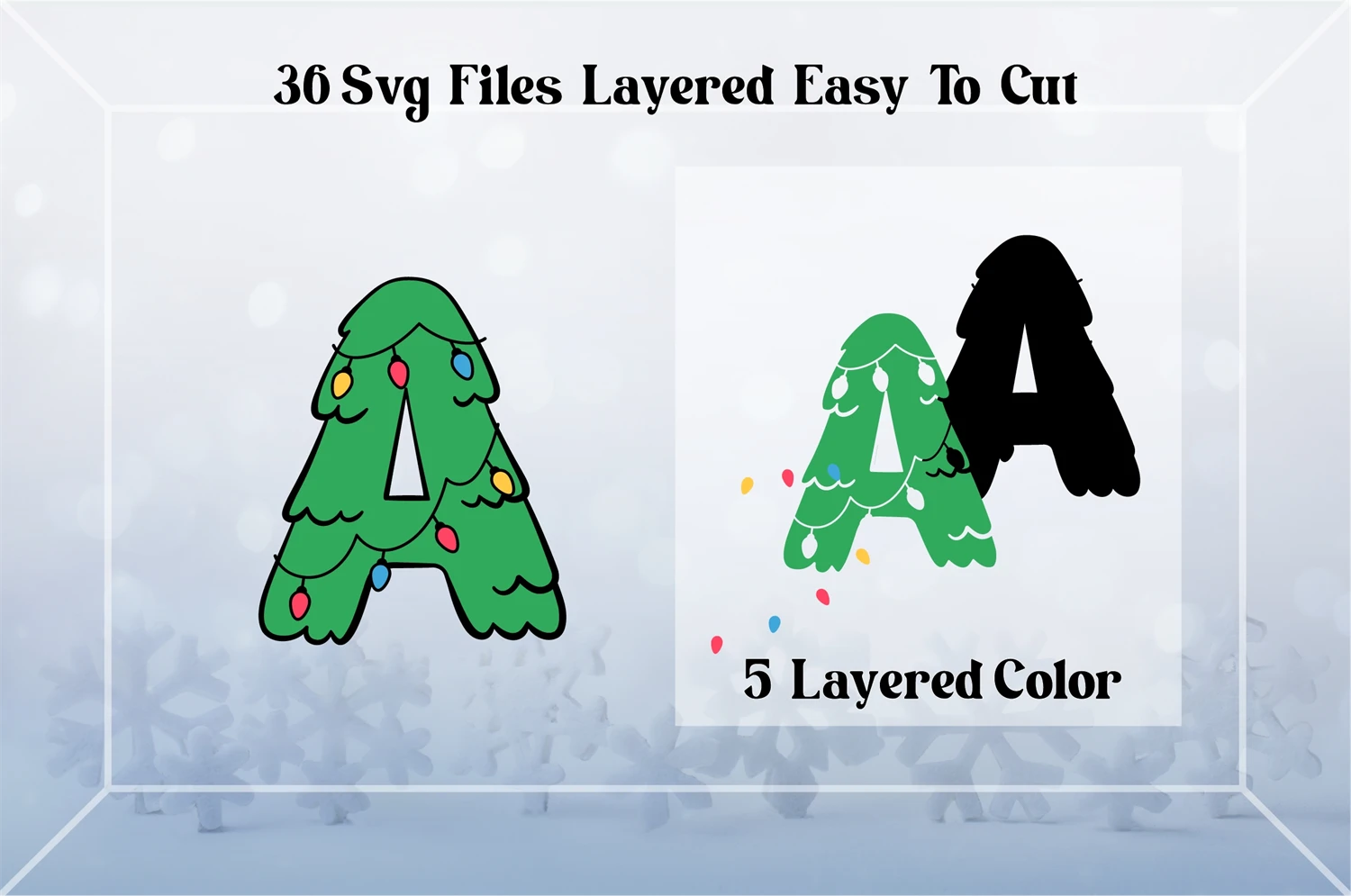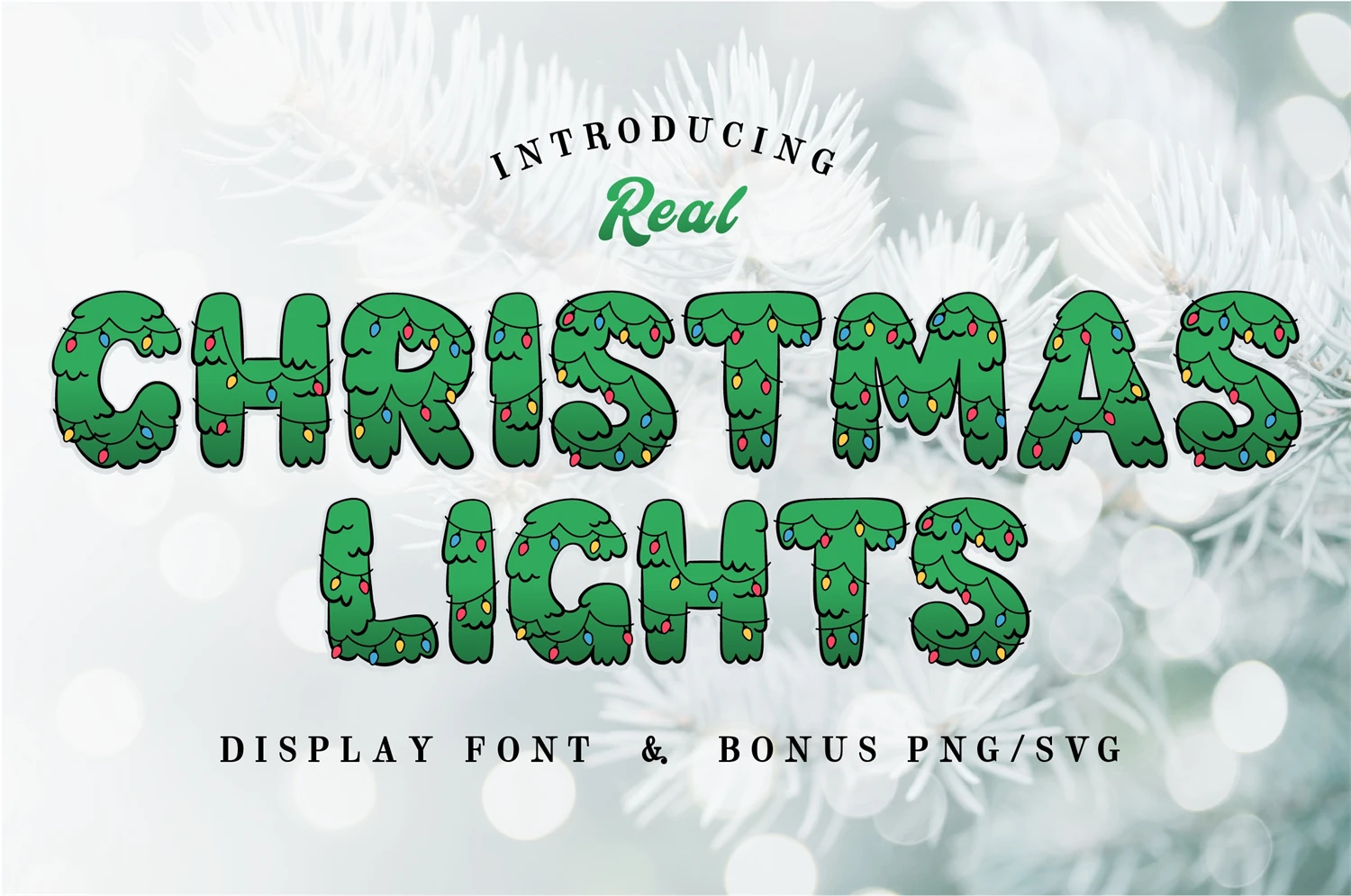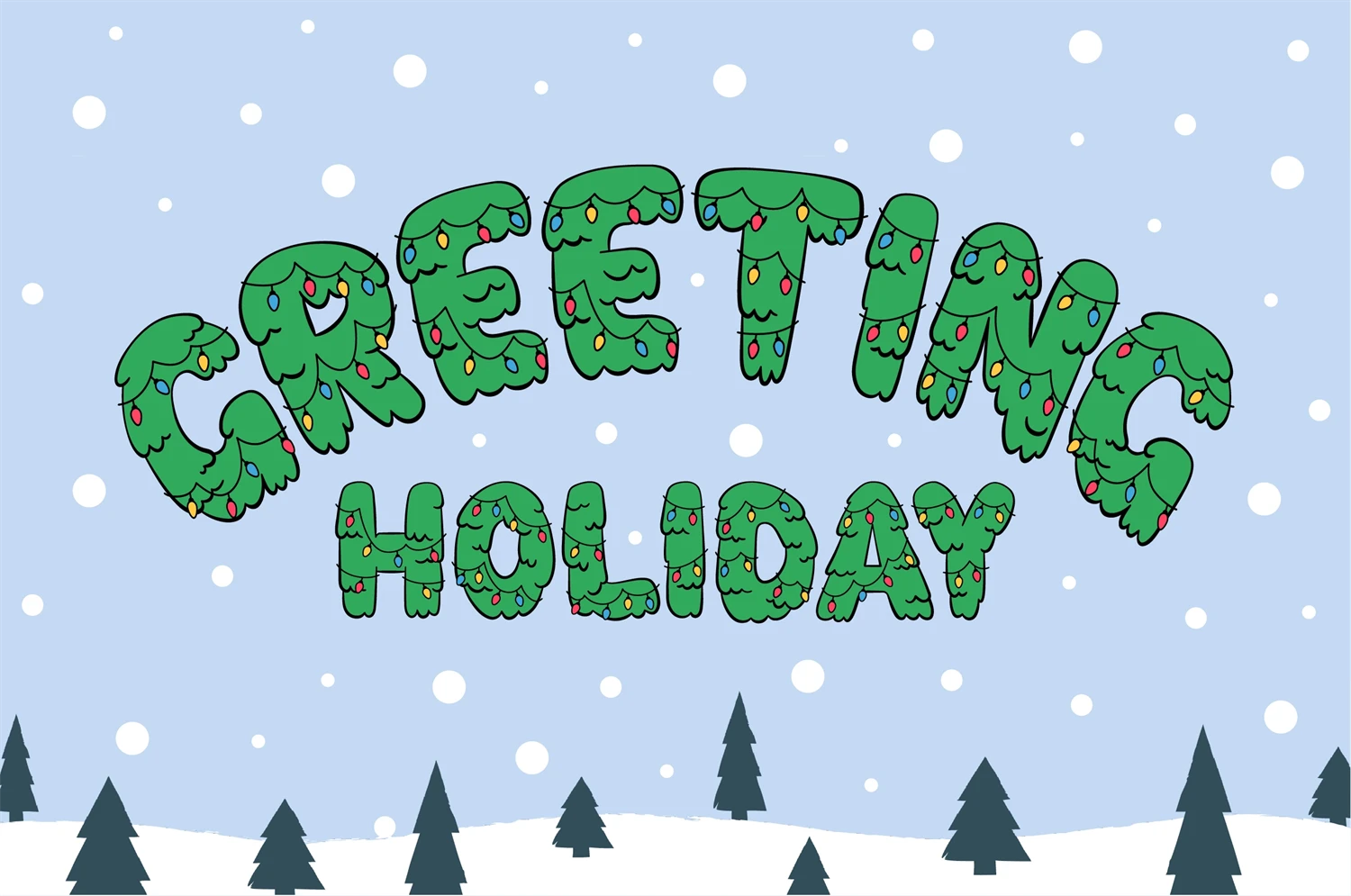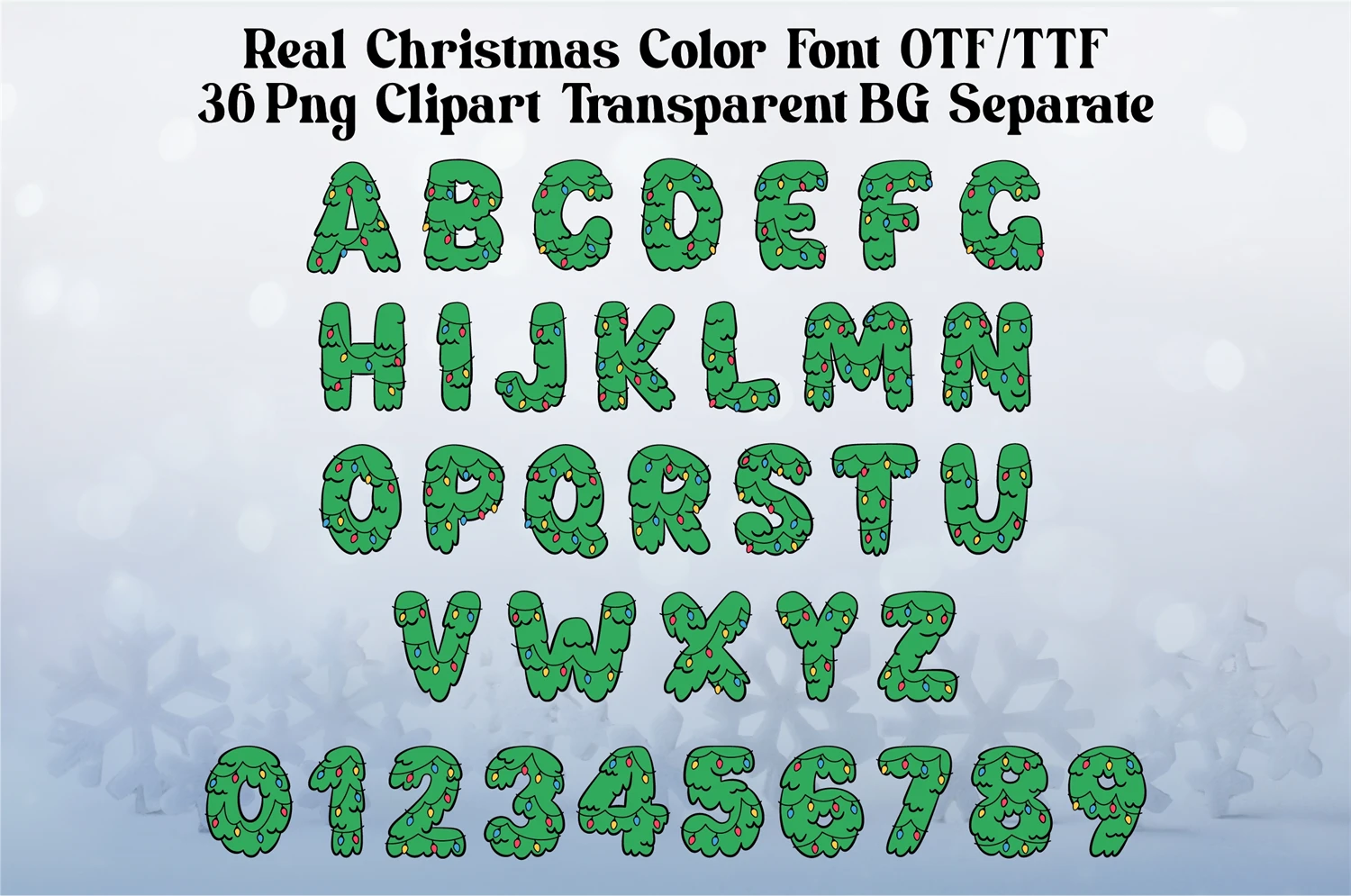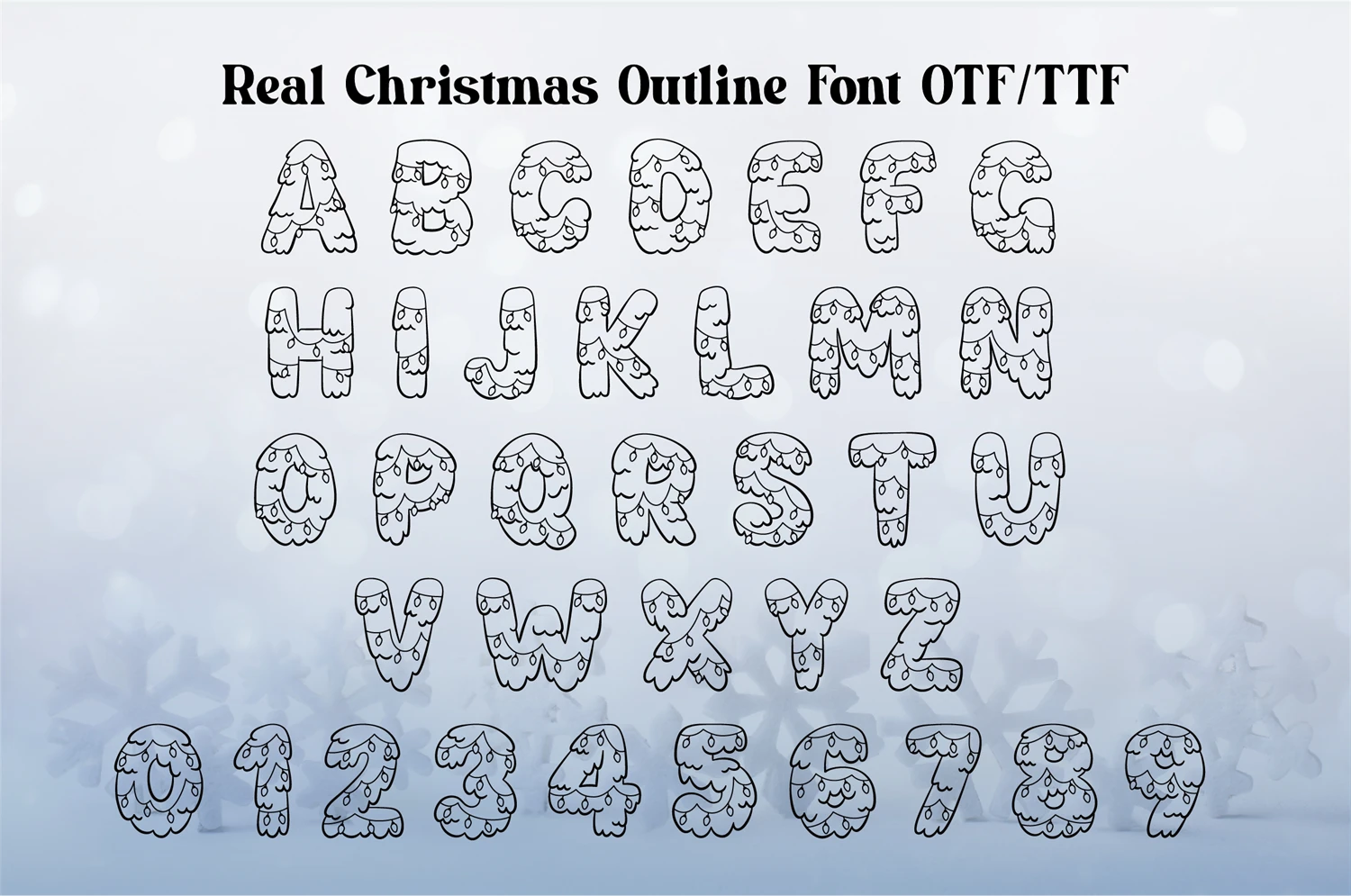
Real Christmas Lights Font Christmas Tree Docor Font & Bonus
Real Christmas Lights is really festive display font. You can create many unique quote and decorate theme with one font. Comes with outline and color version. Perfect for Christmas fun project, shirt design, mug etc.